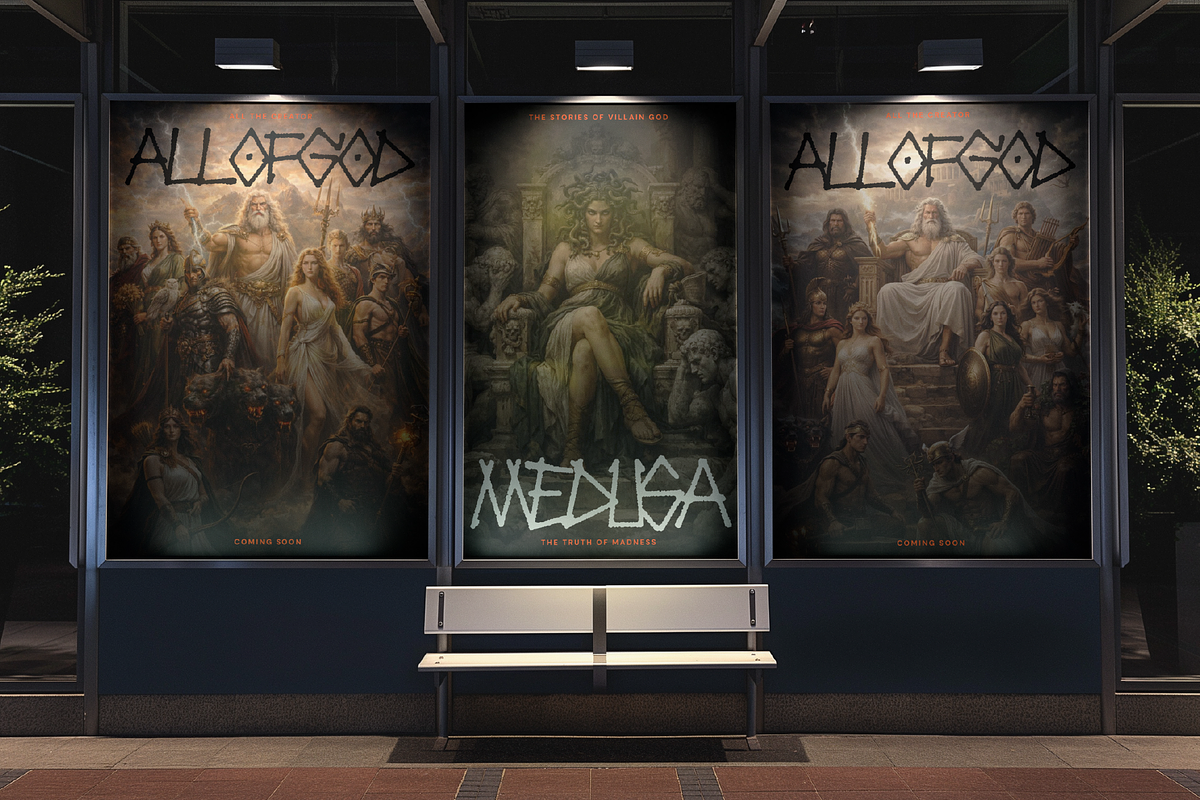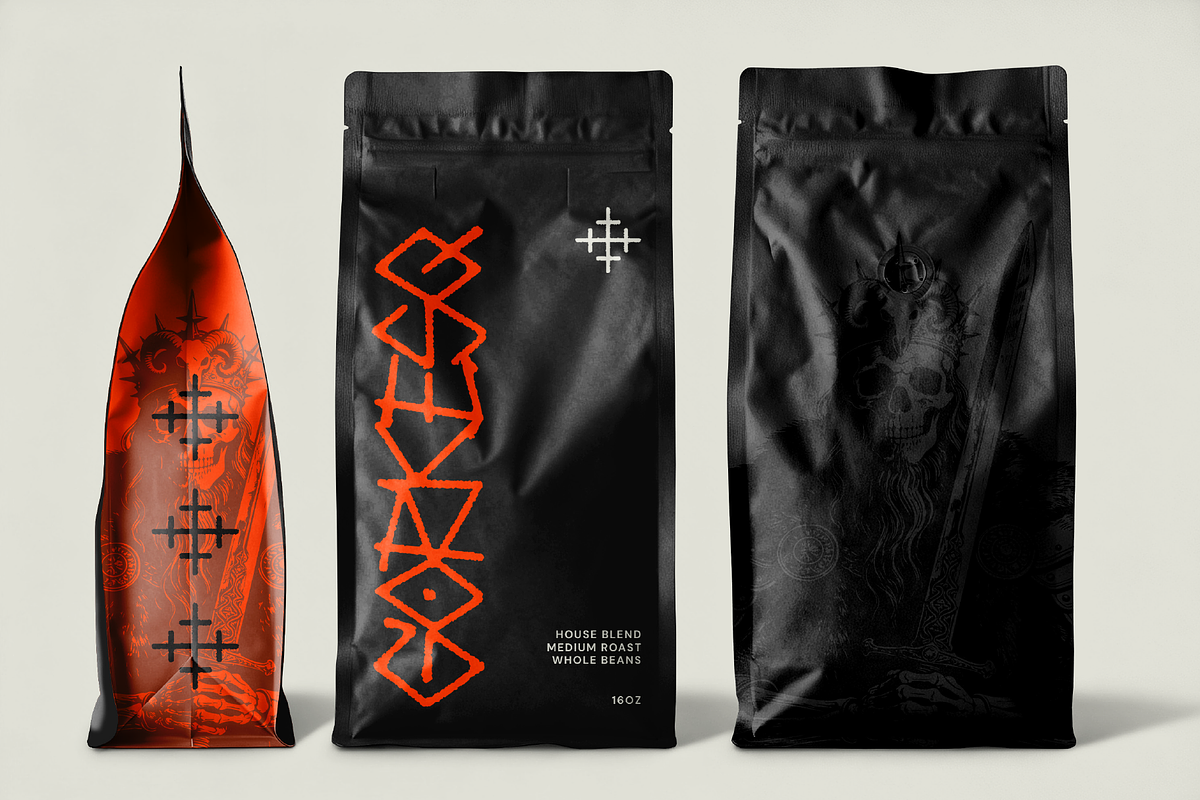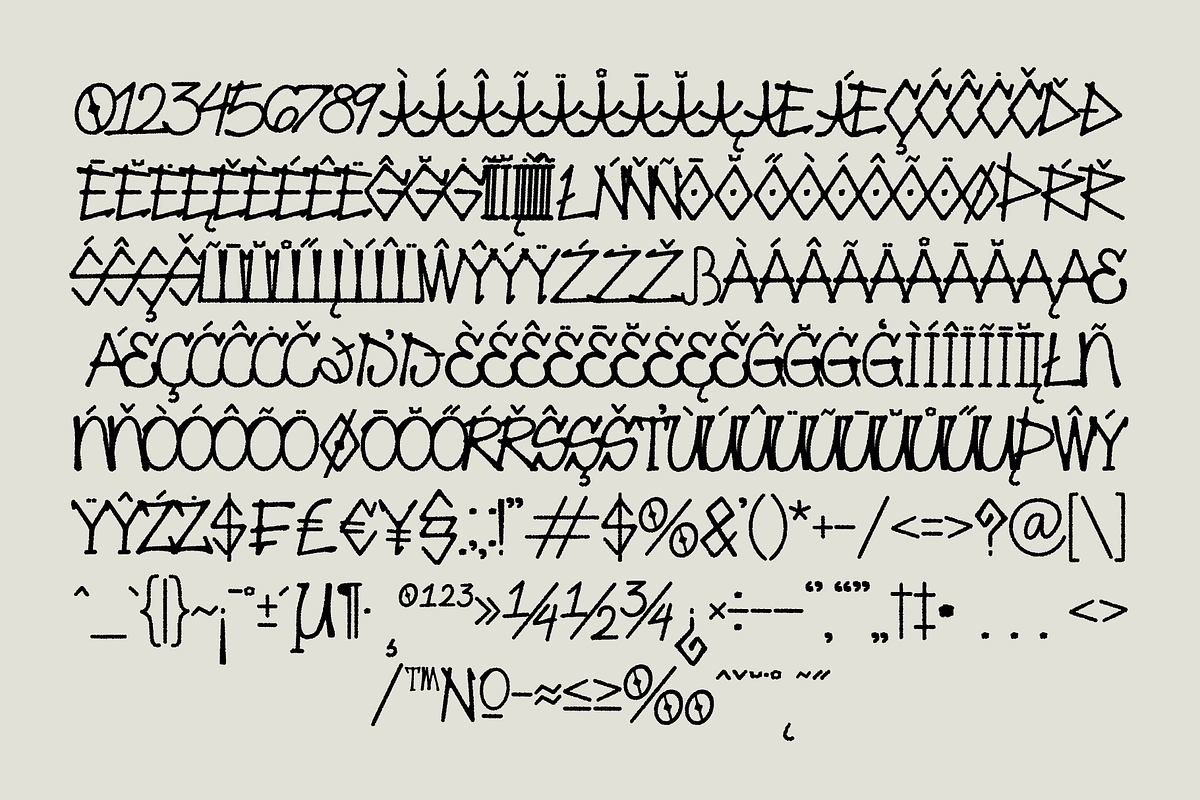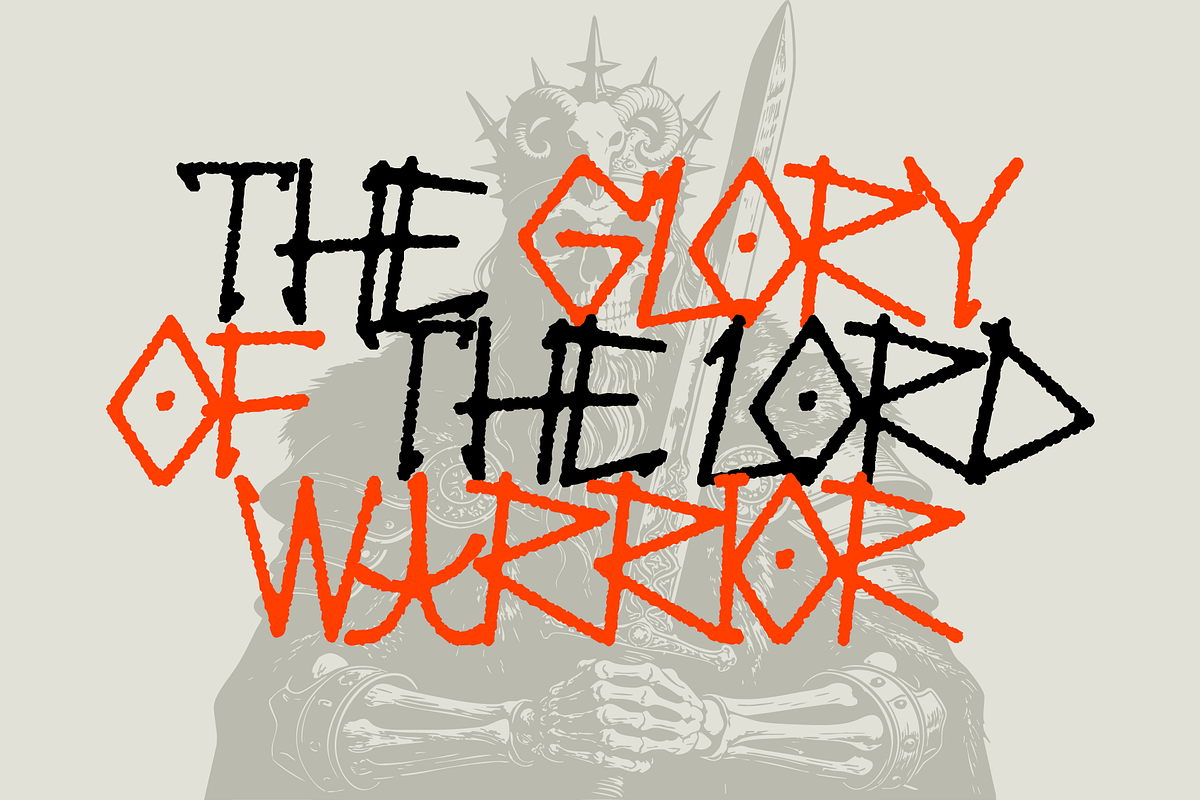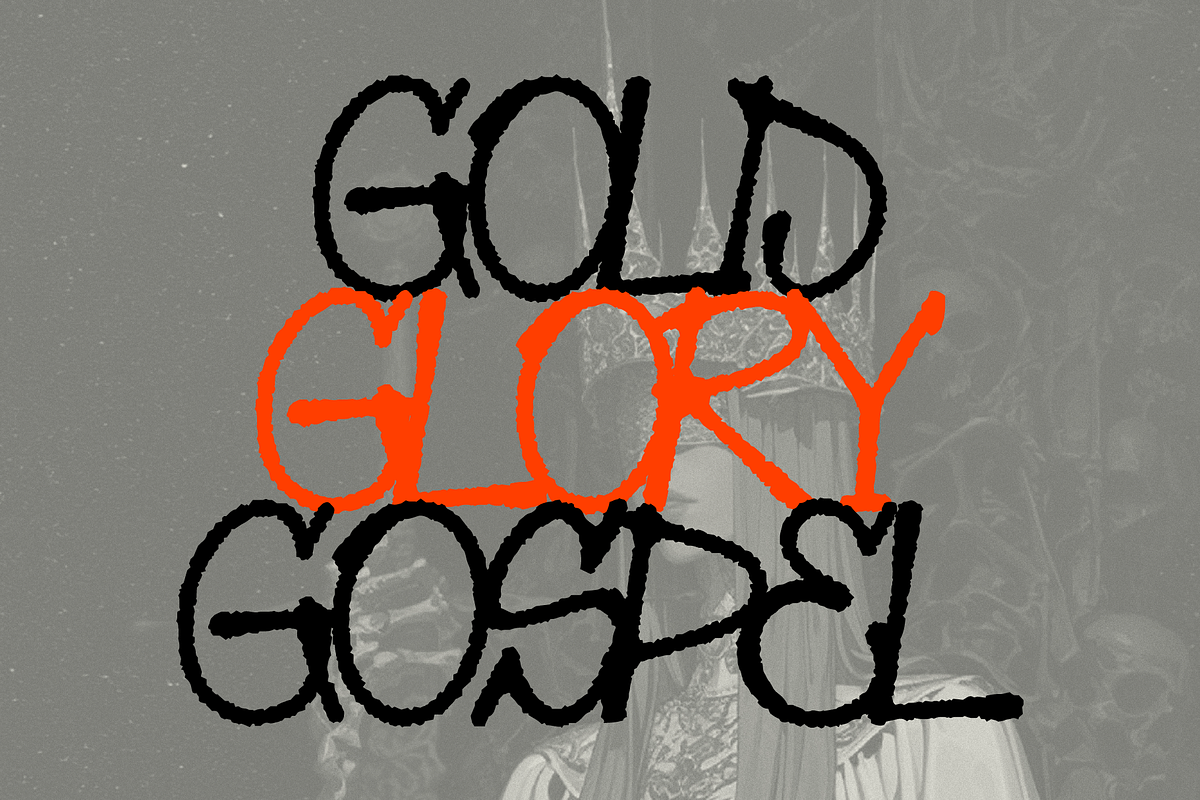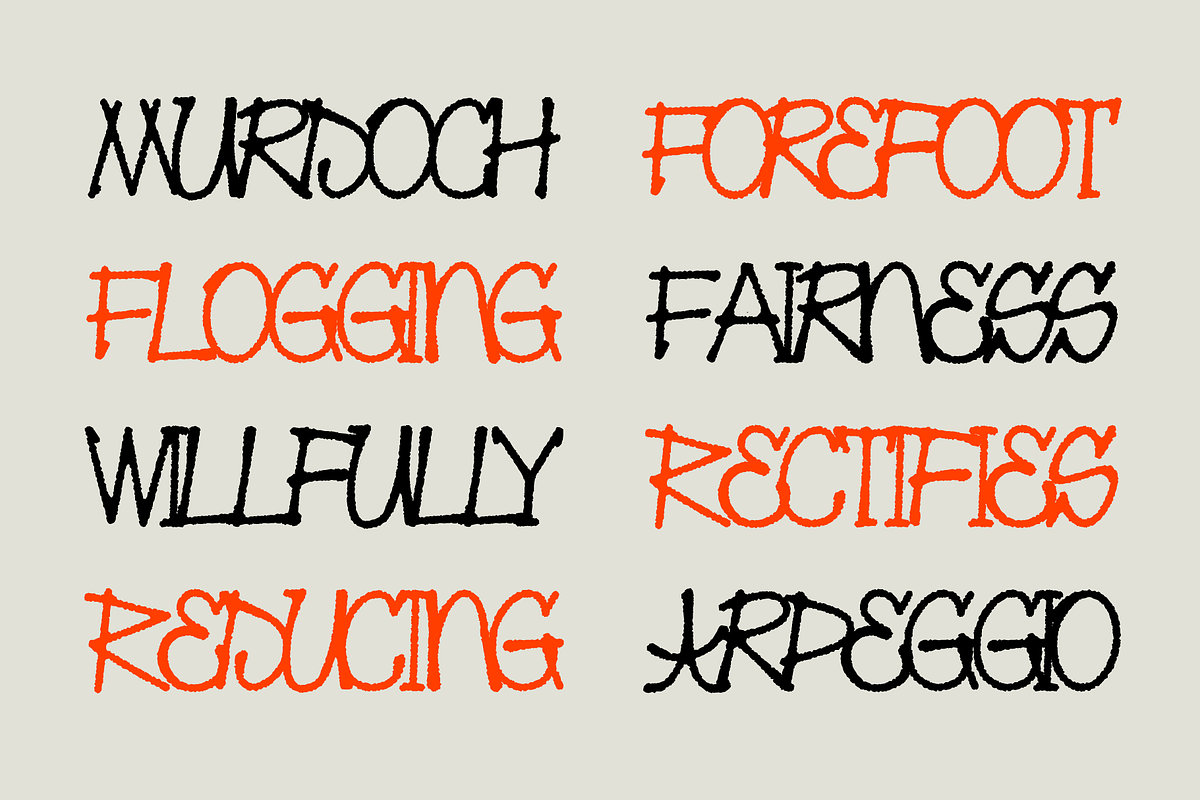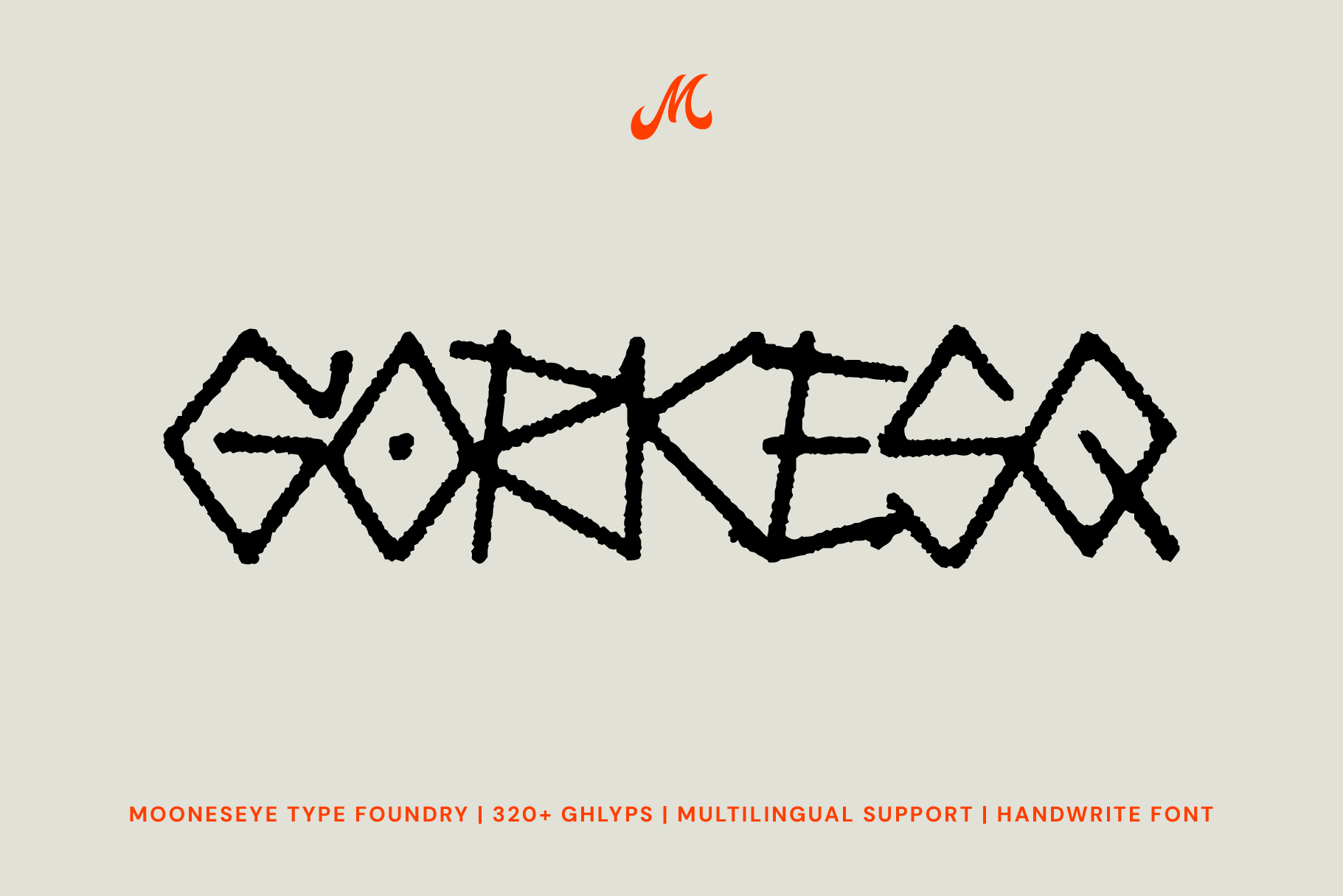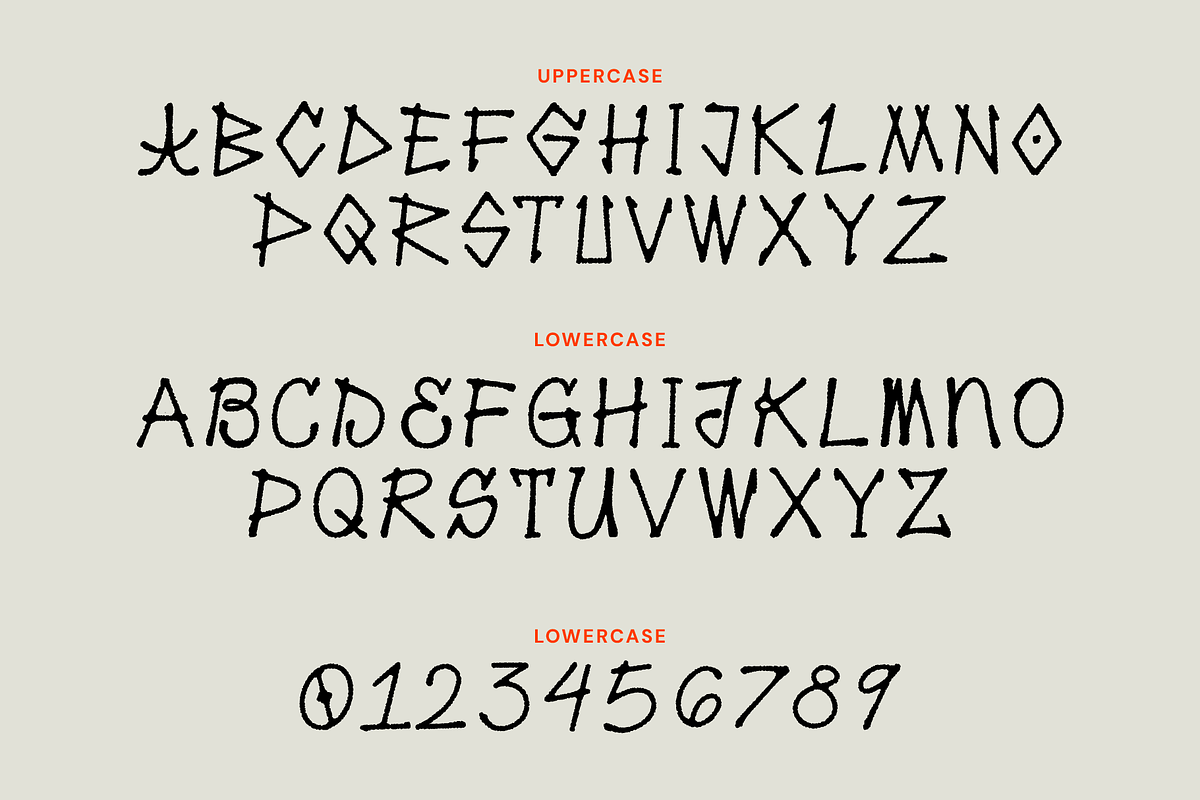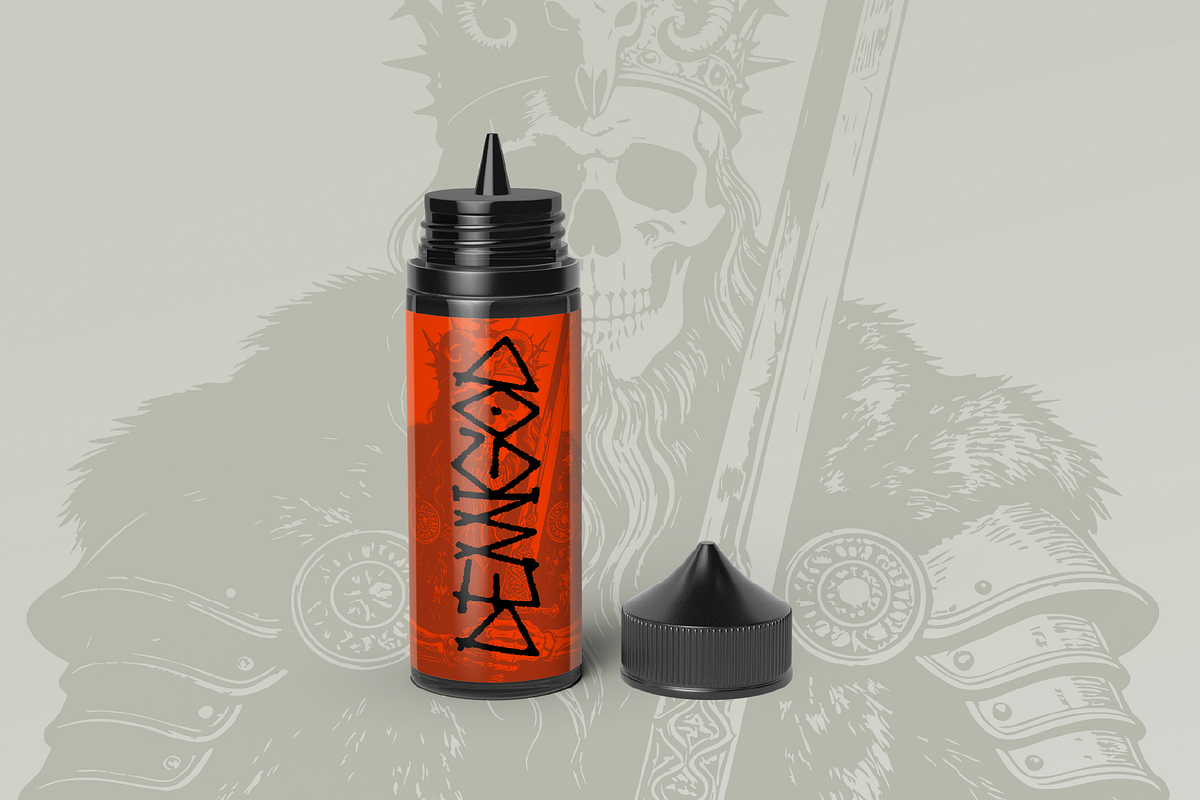
Gorkesq - Handwritten Display Font
Gorkesq is more than just a typeface; it’s a modern ritual in digital form. Inspired by ancient runes, petroglyphs, and tribal markings, this font carries a heavy, "primitive" energy that feels both mystical and raw. Each letter is crafted with a jagged, charcoal-like texture, giving your text the appearance of being etched into stone or drawn with ink on parchment.
Whether you are working on a dark folklore book cover, an indie horror game, or an underground streetwear drop, Gorkesq provides a unique visual language that speaks of old gods and forgotten symbols. The contrast between the sharp, runic uppercase and the more rounded, symbolic lowercase allows you to mix and match styles to create truly one-of-a-kind layouts.